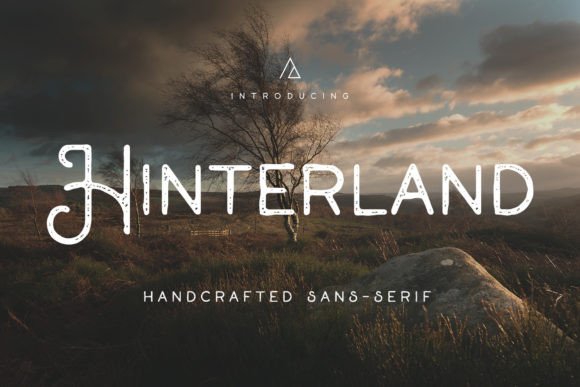
Welcome, nature enthusiasts and design mavericks, to the world of Hinterland Font, where the great outdoors meets captivating typography. Born from the creative genius of Aurora Graphics, Hinterland is a breathtaking sans-serif typeface, hand-crafted to ignite your imagination and transform your designs into mesmerizing works of art.
Unleash the untamed spirit of Hinterland and watch it weave its magic across your projects. Whether you're crafting rugged logos that evoke the raw power of nature, or designing whimsical posters that capture the delicate beauty of forest trails, Hinterland stands ready to elevate your creations to new heights.
Dive into a world where rustic charm and contemporary elegance collide, where every letter exudes a unique personality, echoing the whisper of wind through leaves and the murmur of streams over rocks. Let Hinterland be your guide as you embark on a typographic adventure, leaving your audience spellbound with the sheer brilliance of your design.
Feel the invigorating energy of Hinterland's uppercase letters, adorned with decorative swirls that dance across the page like delicate vines clinging to ancient trees. Witness the understated charm of its small caps letters, their simple letterforms providing a harmonious balance to the exuberant flourishes. Together, they create a visual symphony that will resonate with your audience, captivating their hearts and minds.
Hinterland's versatility knows no bounds. Whether you're crafting captivating headlines that demand attention, weaving enchanting stories in brochures, or conjuring immersive experiences in website designs, Hinterland stands ready to elevate your creative vision. Its boundless potential awaits your artistry, ready to transform your designs into masterpieces that leave a lasting impression.
So, embark on this typographic odyssey with Hinterland Font, and let your designs flourish with the beauty of nature, the power of simplicity, and the unwavering spirit of creativity. Let Hinterland be your muse, your faithful companion in the realm of design, guiding you towards a world of unparalleled visual wonders.